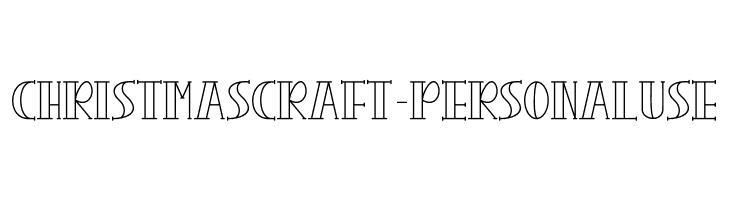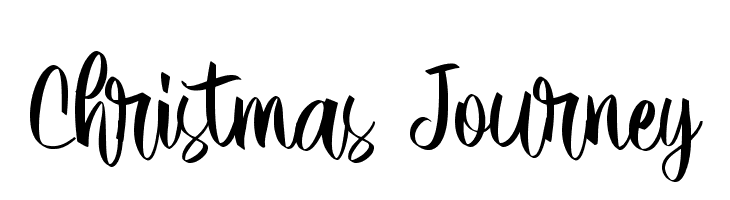
An ornate and decorative script font with intricate swirls and flourishes.
A gothic-inspired font with sharp, angular edges and dramatic serifs.
A bold, gothic-inspired font with sharp serifs and a medieval aesthetic.
A bold, brush-style font with an artistic, hand-drawn appearance.
A playful, rounded font with a hand-drawn, whimsical style.
A playful, handwritten font with dynamic strokes and a casual style.
A bold, distressed font with a grunge texture for impactful designs.
A bold, rounded font with a modern and clean aesthetic.
A bold, italicized font with rounded, modern characters and a dynamic style.
A modern, geometric font with clean lines and uniform stroke widths.
A sleek, modern italic font with consistent stroke width and rounded edges.
A modern, geometric font with clean lines and rounded edges, perfect for bold headlines.
A modern, italic font with rounded edges and uniform stroke width.
A sleek, modern italic font with thin lines and geometric structure.
A modern, geometric font with clean lines and a minimalist aesthetic.
A bold, rounded font with thick strokes and smooth curves.
A bold, ultra-italic font with rounded edges and a modern, futuristic style.
A modern, geometric stencil font with a bold and industrial aesthetic.
A whimsical font featuring cartoonish faces as characters, perfect for creative projects.
A flowing, cursive font with elegant, connected strokes.
A modern, angular font with a futuristic and bold design.
A graceful and elegant script font with flowing, intricate loops and swashes.
A graceful and elegant script font with flowing, interconnected letters.
A calligraphy-inspired typeface with elegant, flowing characters and sharp angles.